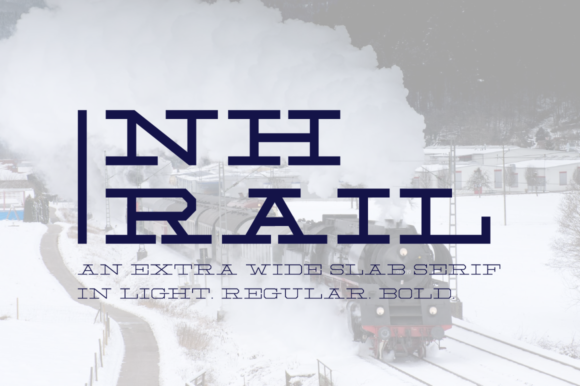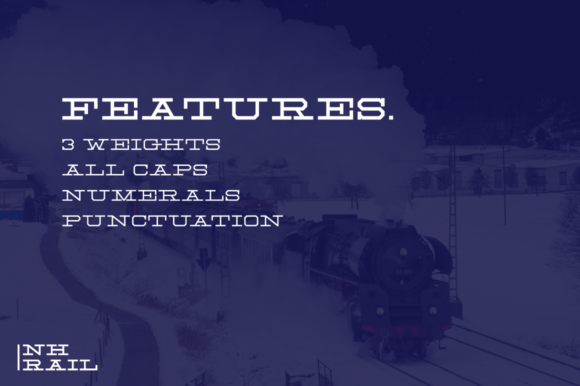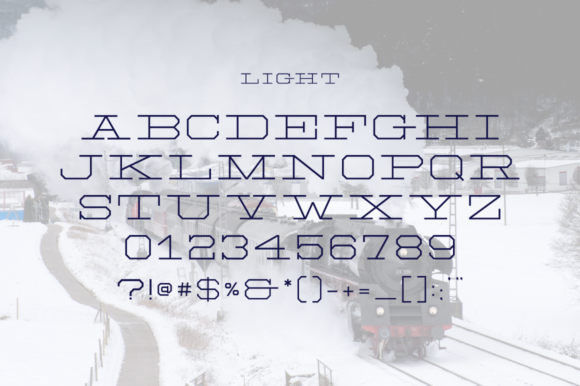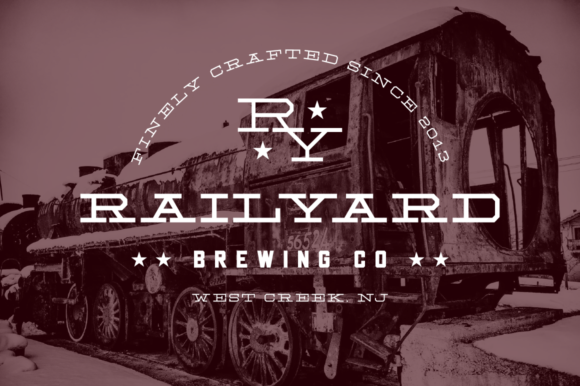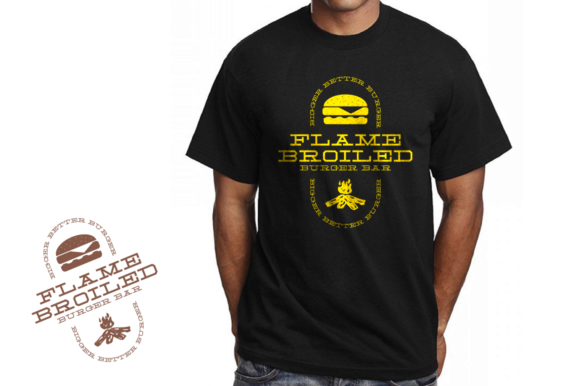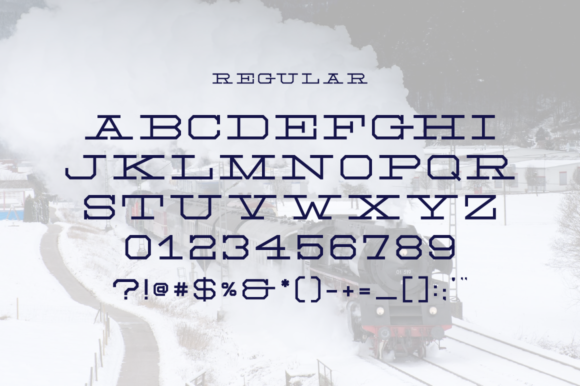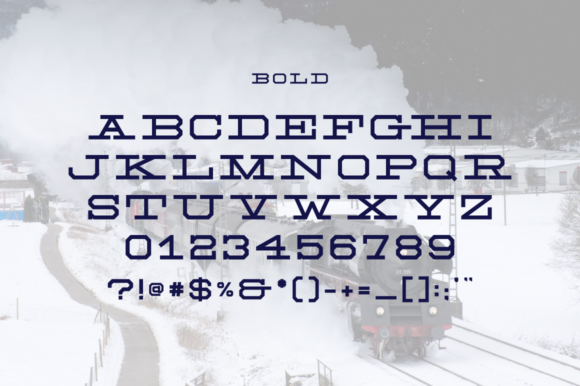
NH Rail Font
NH RAIL FONT SPECIMEN
The NH Rail is an extra wide slab serif, inspired by the old logo for the New Haven Railroad (1872-1968), created by Herbert Matter. It fuses long bold slab serifs with modern block styling to create an impact-full timeless look that adds a punch to any design & logo.